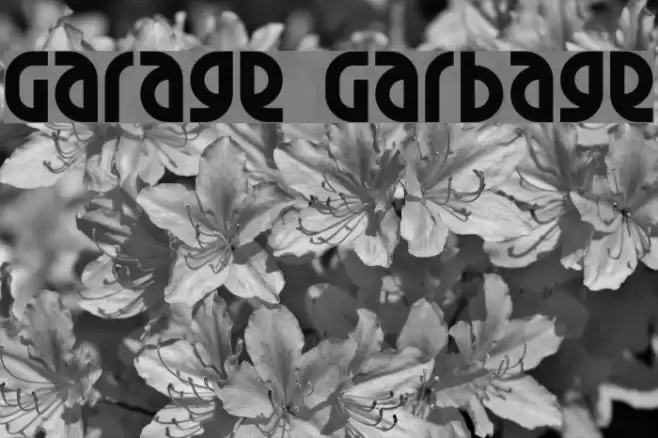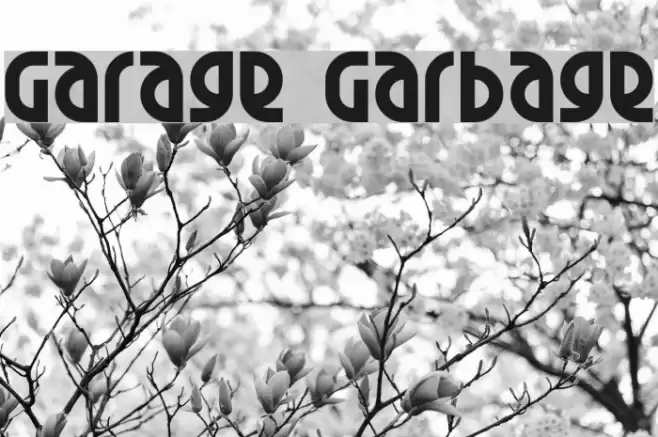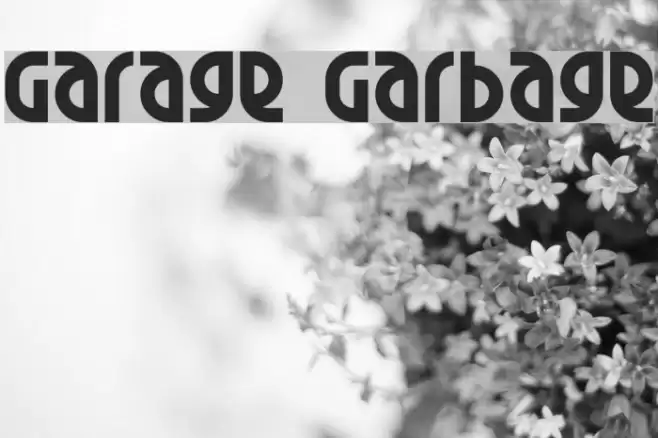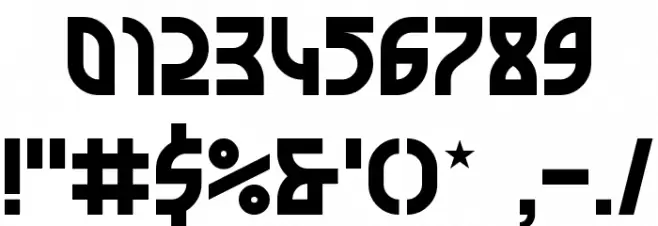
Garage Garbage Font
Garage Garbage Description
This font features a bold and geometric design with a distinctively modern and futuristic aesthetic. The characters are constructed with thick, uniform strokes that create a strong visual impact. The angular shapes and sharp edges give it a unique and edgy appearance, making it stand out in any design. The uppercase and lowercase letters maintain a consistent style, while the numerals and special characters complement the overall look. The font's design is both functional and artistic, suitable for a variety of creative applications.
A bold, geometric font with a modern, futuristic style from Uncategorized fonts.
- Proposed Projects: Ideal for branding, posters, headlines, and any project requiring a strong, modern aesthetic.